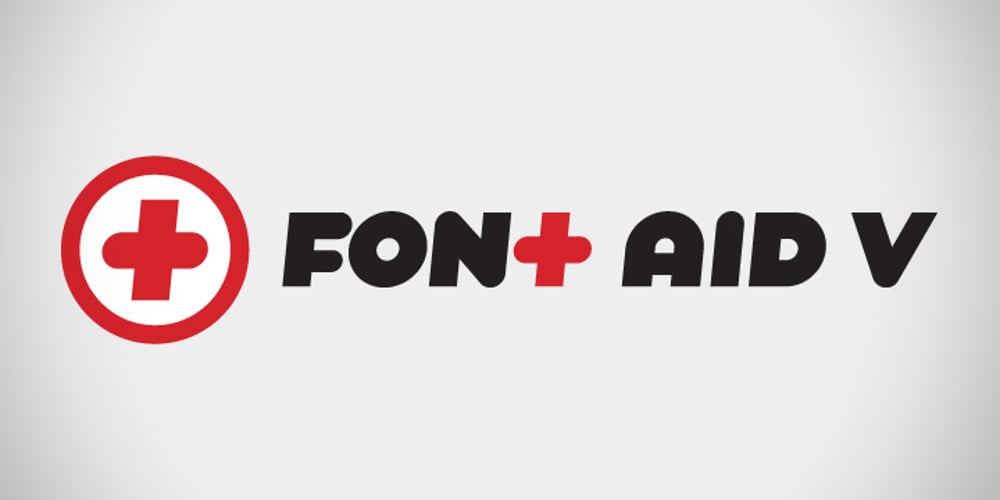
Made For Japan
Made For Japan font
Made For Japan Font Family was designed by published by Font Aid V. Made For Japan contains 1 styles and family package options. In March 2011, the Society of Typographic Aficionados began organizing a collaborative project that would unite the typographic and design communities. The goal of Font Aid V: Made for Japan was to raise funds to expedite relief efforts after the devastating earthquake and tsunami in Japan. Nearly 300 contributors from 45 countries sent in over 500 glyphs in a single week. Behind the scenes, volunteers Neil Summerour, Silas Dilworth, Delve Withrington, and Grant Hutchinson were up to their elbows in Adobe Illustrator and Fontlab assembling the typeface. The sheer number of submissions coupled with the complexity of some of the designs caused unforeseen delays in completing the typeface. The team not only managed the immense influx of submissions, it also had several technical hurdles and multiple content reviews to mitigate before the final font could be produced. Several months after the project was initiated, Font Aid V: Made for Japan was finally ready for distribution. With the help of Sogo Japan, all proceeds from sales of this typeface will be delivered directly to organizations in Japan, such as Second Hand and AMDA International (Association of Medical Doctors of Asia). Sogo Japan strives to help circumvent regular international charity channels and the inefficiencies associated with them. Thanks to everyone who participated and helped us spread the word about the Font Aid V: Made for Japan project. In particular, we would like to acknowledge the following individuals and groups for their participation and involvement: Jonathan Abbott, Rui Abreu, Frank Adebiaye, Tim Ahrens, Anonymous, Eero Antturi, Leonardo Aranda, Hector Carrillo Aspano, Danielle Atnip, Alejandro Cabrera Avila, Christophe Badani, Joanne Gyo Young Bae, Ben Balvanz, Cynthia Bataille, Priyanka Batra, Donald Beekman, Hannes Beer, David Berlow, Kevin Beronilla, Fabian Bertschinger, Nicole Bittner, Bart Blubaugh, Dathan Boardman, Andrew Boardman, Joel Vilas Boas, Konstantin Boldovskiy, Scott Boms, Michael Browers, Vickie Burns, Matt Burvill, Daniele Capo, Seymour Caprice, Mauro Caramella, Matevž Čas, Eli Castellanos, Sarah Castillo, Tom Censani, Pinar Ceyhan, Ivette Chacon, Hin-Ching Chan, Sarah Charalambides, Karen Charatan, Sinde Cheung, Todd Childers, Justin Chodzko, Felipe Coca, Antonio Coelho, Jefferson Cortinove, Alan Lima Coutinho, Nick Cox, Nick Curtis, Girish Dalvi, Christopher DeCaro, Thomas C Dempsey, Matt Desmond, Chank Diesel, Anum Durvesh, Suzie Eland, Engy Elboreini, Craig Eliason, Emi Eliason, James Elliott, Grace Engels, Exljbris, Hillary Fayle, Carol Fillip, Jeff Fisher, Scott Fisk, John Foley, Stuart Ford, Mathias Forslund, Brock French, Anina Frischknecht, Eric Frisino, Chiyo Fujimori, Kaela Gallo, Ayesha Garrett, Harald Geisler, Alfonso Gómez-Arzola, Adriana Esteve González, Richard Gregory, James Grieshaber, Grupoingenio, Kemie Guaida, Carlos Fabián Camargo Guerrero, Rachel Han, Erin Harris, Stefan Hattenbach, Magnus Hearn, Marissa Heiken, Georg Herold-Wildfellner, Jamie Homer, Ed Hoskin, Dav[id Hubner], Jonathan Hughes, Rian Hughes, Grant Hutchinson, Xerxes Irani, Masayuki Izumi, Jan Janeček, Hyun Kyung Jang, Julien Janiszewski, Dušan Jelesijevic, Cal Jepps, Meghan Jossick, Evamaria Judkins, July Twenty Fourth, Erica Jung, William K, Claes Källarsson, Kapitza, Asutosh Kar, Arno Kathollnig, Sami Kaunisvirta, Hajime Kawakami, Scott Kaye, Richard Kegler, Anna Keroullé, Bizhan Khodabandeh, Lara Assouad Khoury, Ilona Kincses, Becky King, Sean King, Megan Kirby, Max Kisman, Keith Kitz, Romy Klessen, Akira Kobayashi, Kokin, Kozyndan & Silas Dilworth, Atushi Kunimune, Andreas Kuschner, John Langdon, Ray Larabie, Jess Latham, Kelly D Lawrence, Matic Leban, Chien-Hao Lee, Bryan Levay, Enrico Limcaco, Andreas Lindholm, Andrew Loschiavo, Chris Lozos, Ian Lynam, John Lyttle, Gustavo Machado, Jonathan Mak, Ricardo Marcin, Jeannie Mecorney, Steve Mehallo, Cristina Melo, Martin Mendelsberg, The Midnight Umbrella Studio, Goro Mihok, Ojasvi Mohanty, Ahmed Mohtadi, Alixe Monteil, Veronica Monterosso, Dani Montesinos, Masanobu Moriyama, Misa Moriyama, Pedro Moura, John Moy Jr, Marc Marius Mueller, Shoko Mugikura, Joachim Müller-Lancé, Diane Myers, John Nahmias, Yoshihisa Nakai, Hiroshi Nakayama, Reiko Nara, Nathoo, Titus Nemeth, Nathanael Ng, Ngoc Ngo, Antoninus Niemiec, James Ockelford, Kunihiko Okano, Naotatsu Okuda, Toshi Omagari, Onikeiji, Ozlem Ozkal, Jason Pagura, Hrant Papazian, Brian Jongseong Park, John Passafiume, Patrick Griffin, Alejandro Paul, Vian Peanu, Dylan Pech, Rebecca Penmore, Peter Brugger, Jean François Porchez, Carolyn Porter, Andrew Pothecary, James Puckett, Rachel Hernández Pumarejo, James Random, Liam Roberts, Tom Rogers, David Jonathan Ross, Sumio Sakai, Sana, Stuart Sandler, Rafael Saraiva, Riccardo Sartori, Ai Sasaki, Yee Wen Sat, Agnes Schlenke, Giovanna Scolaro, Roland Scriver,